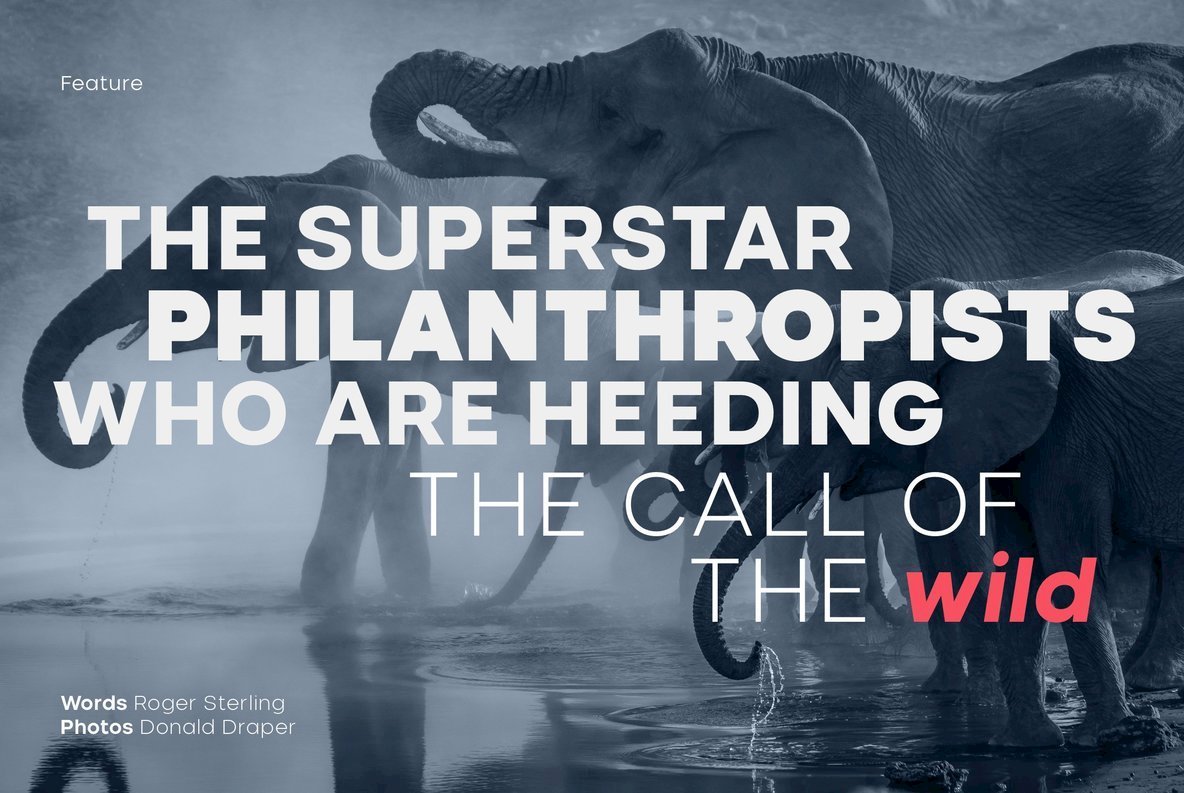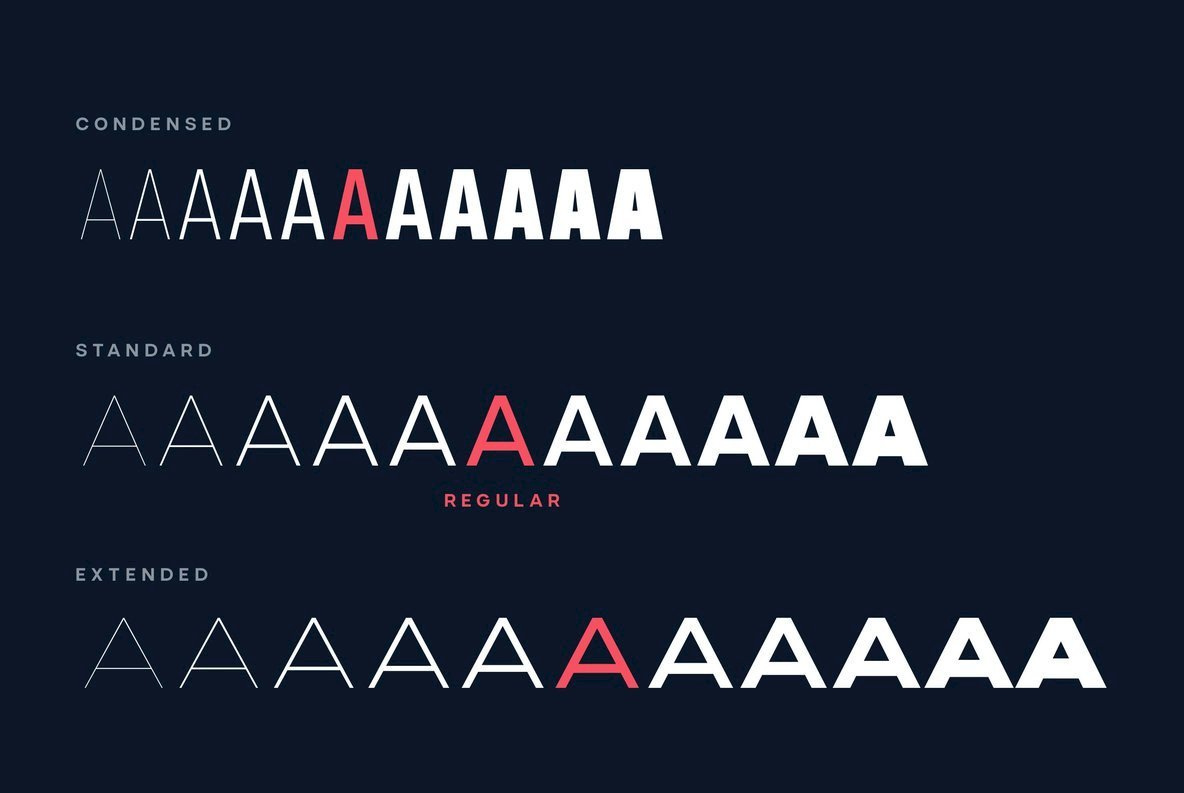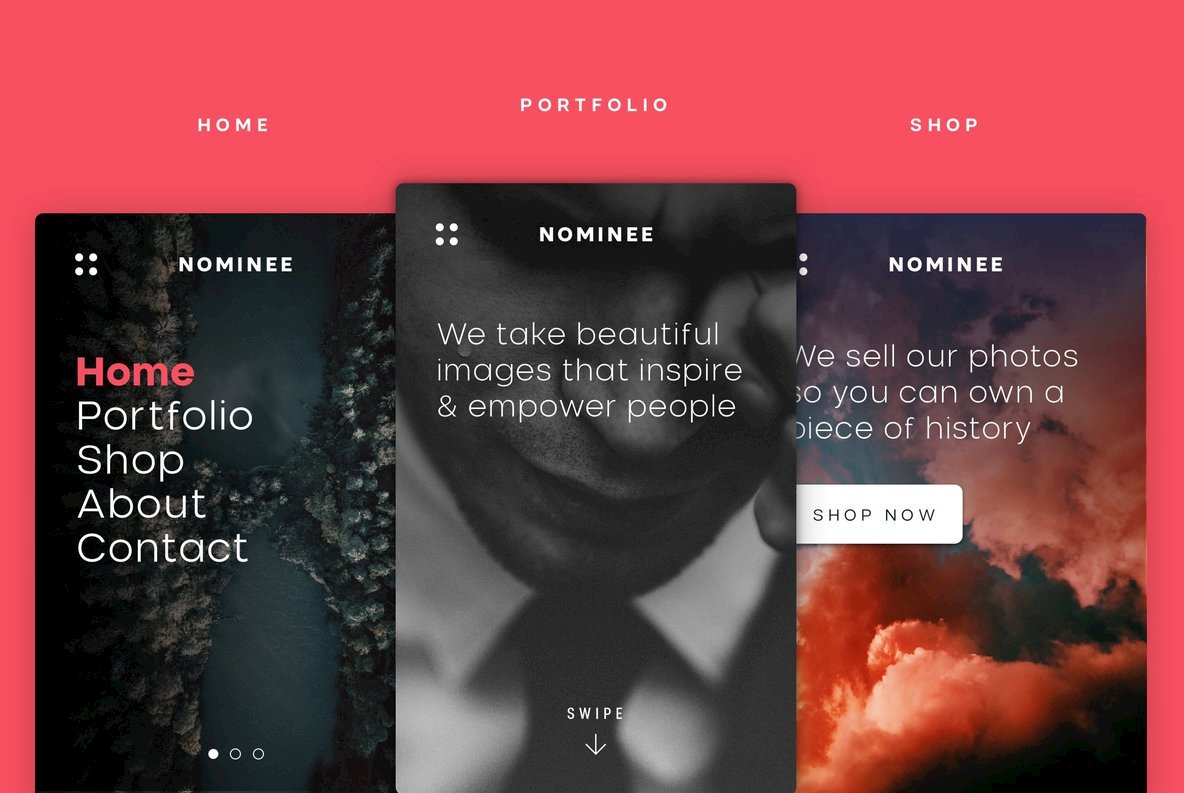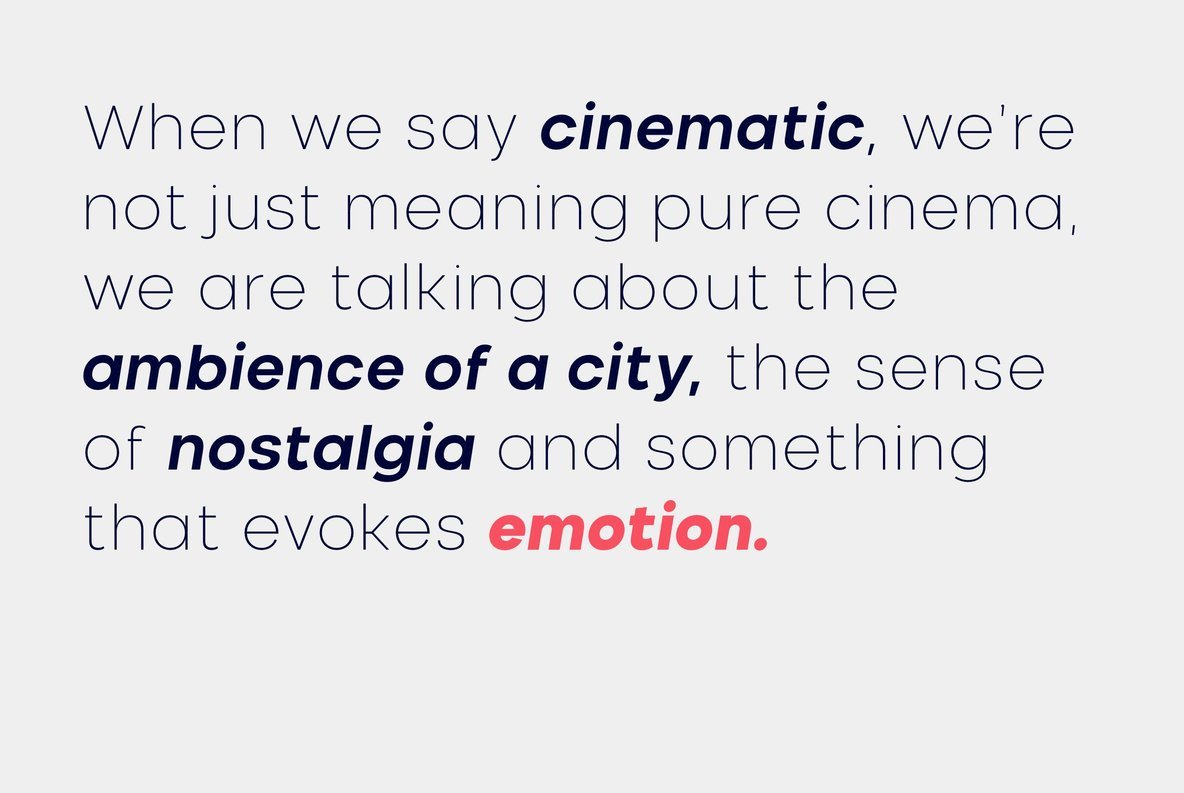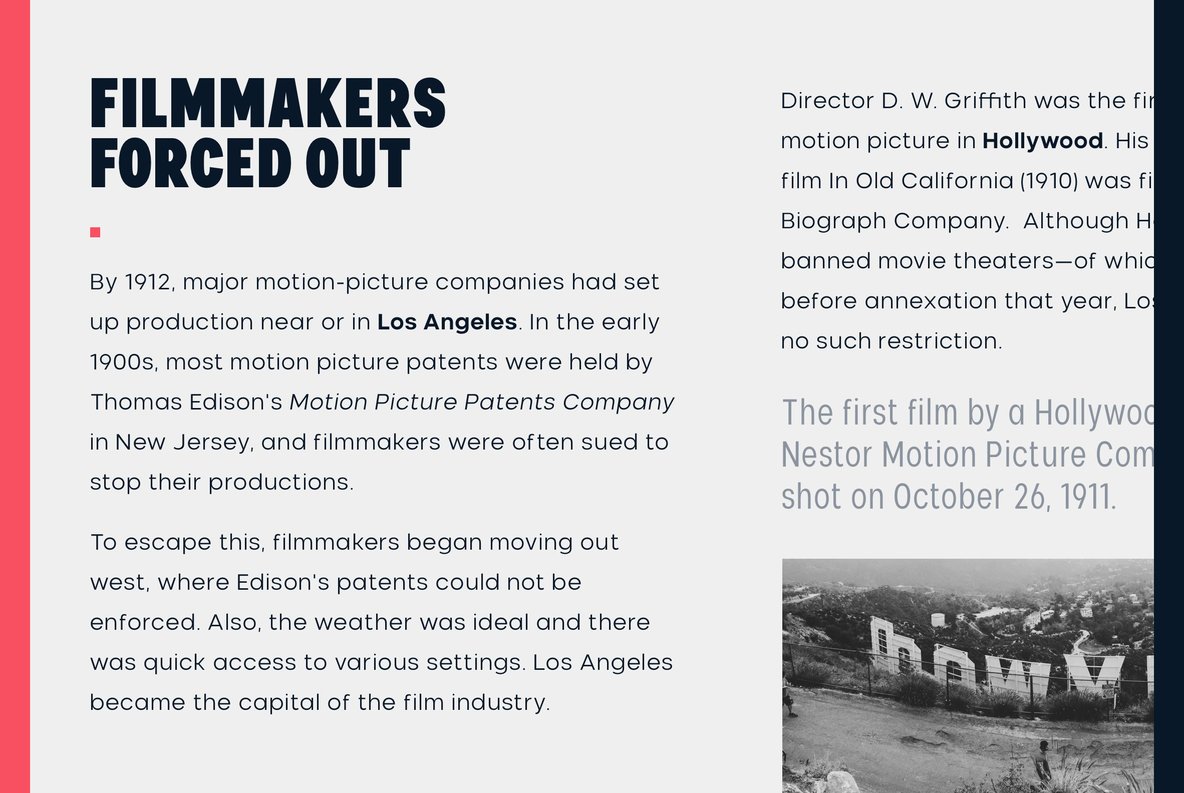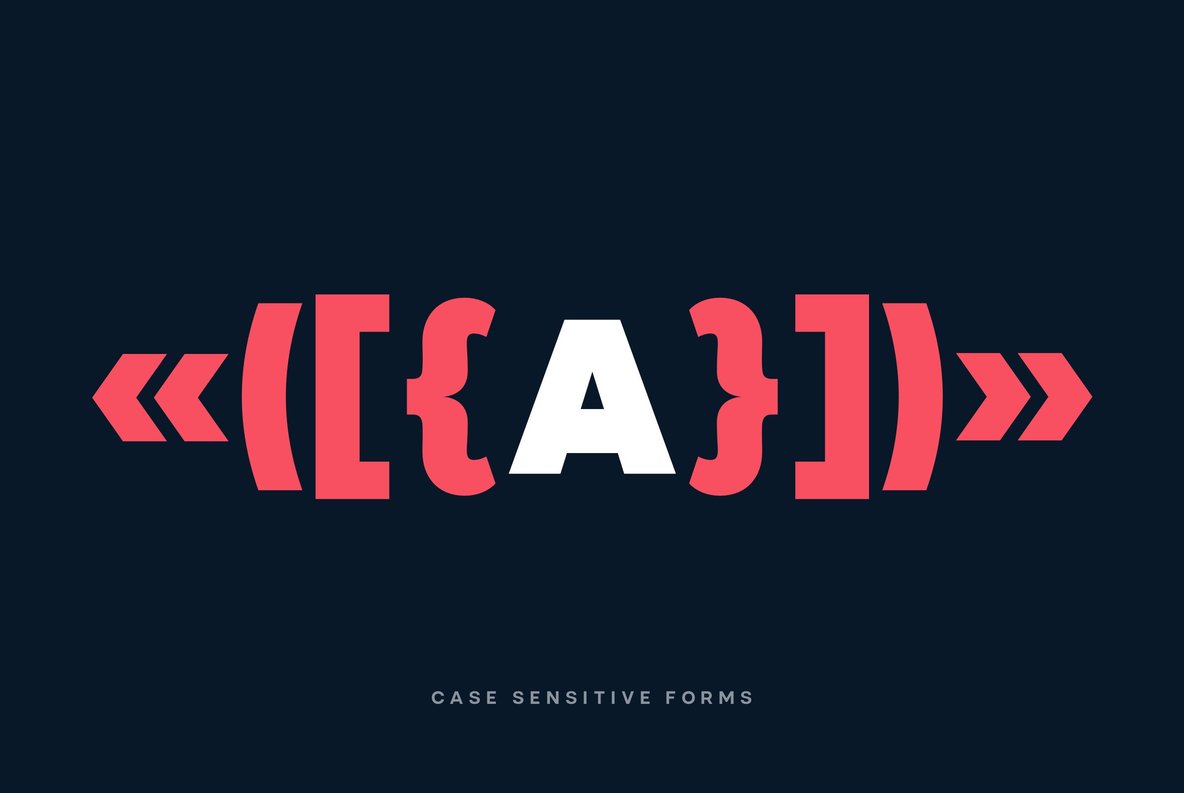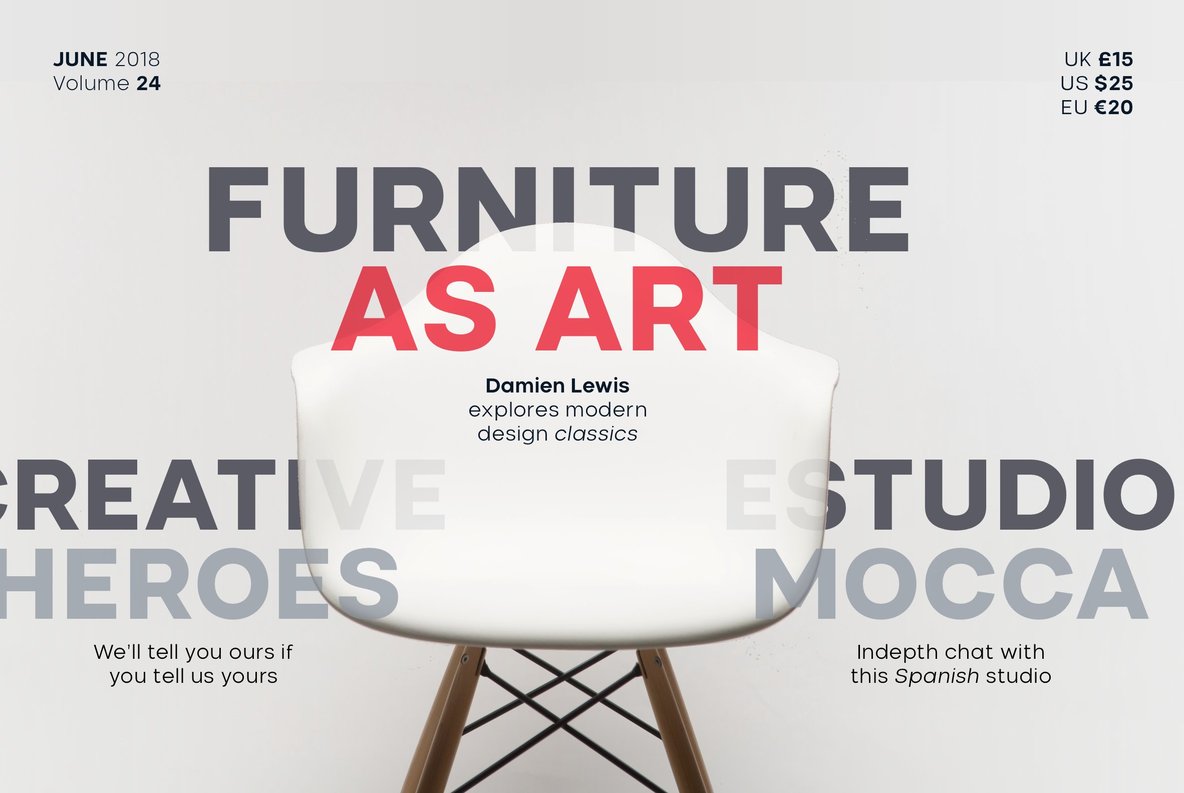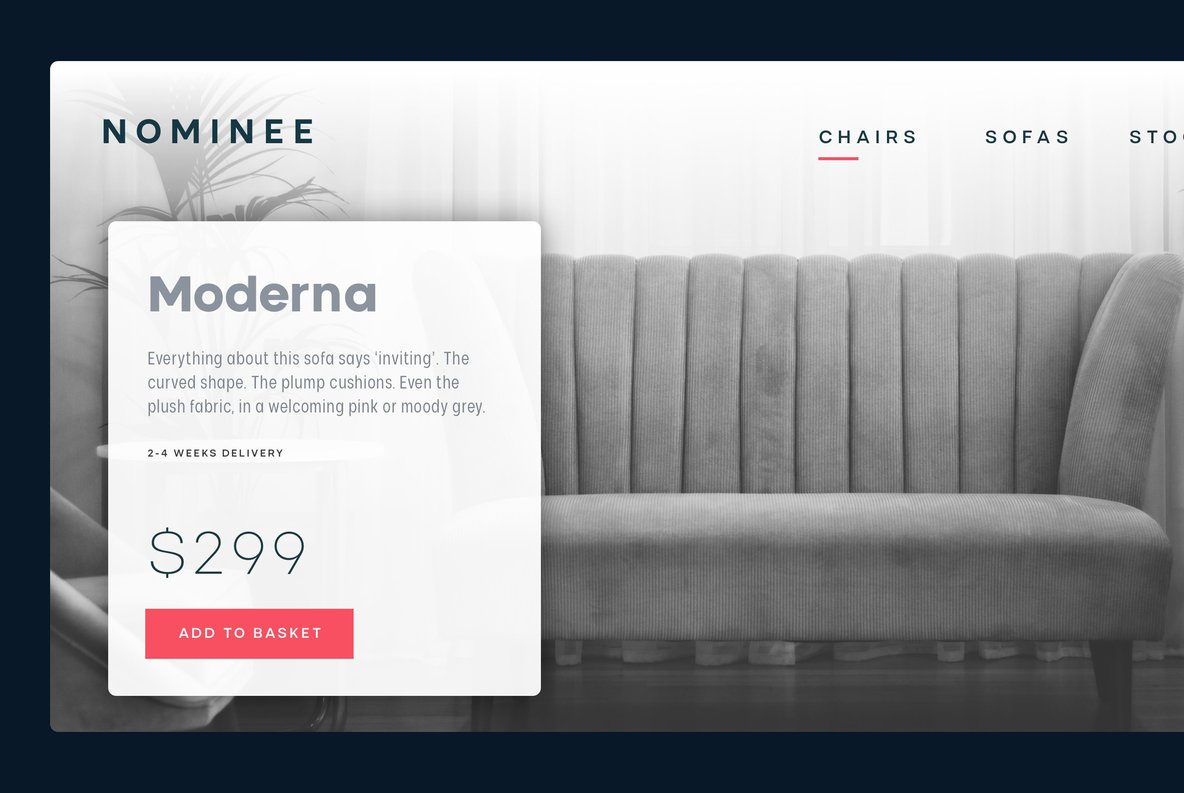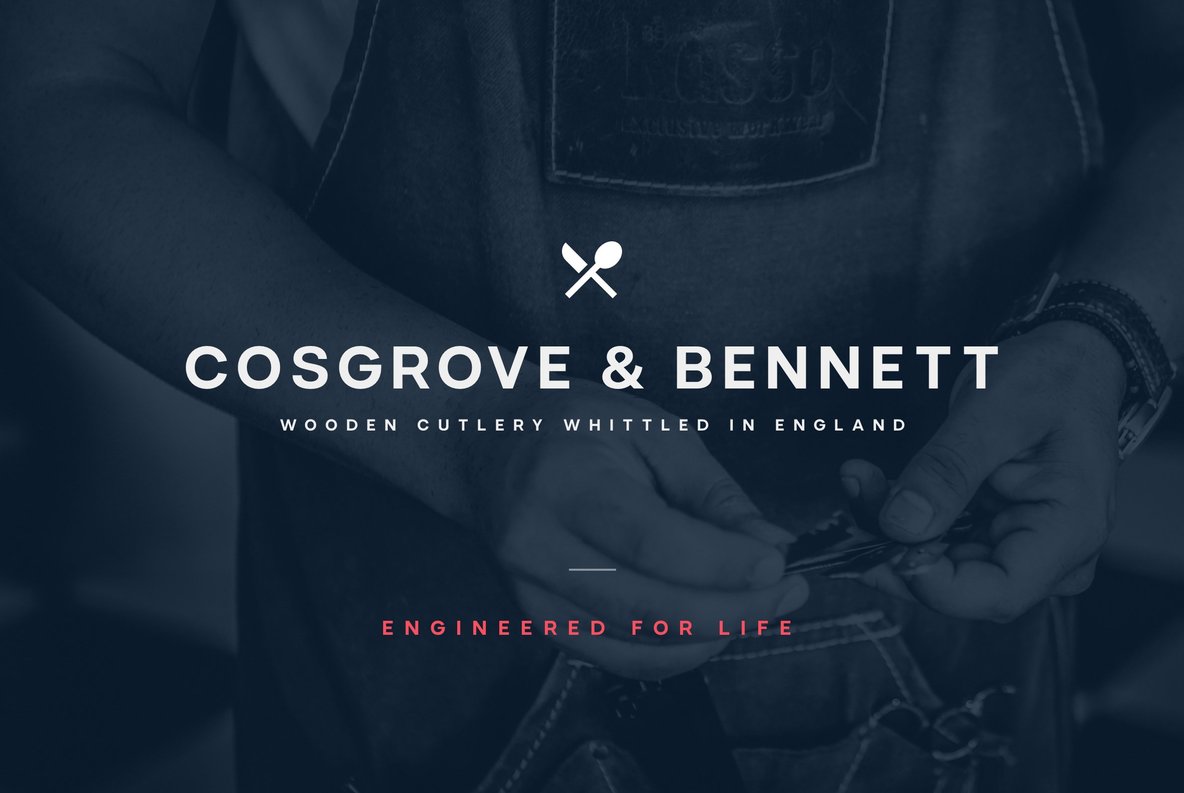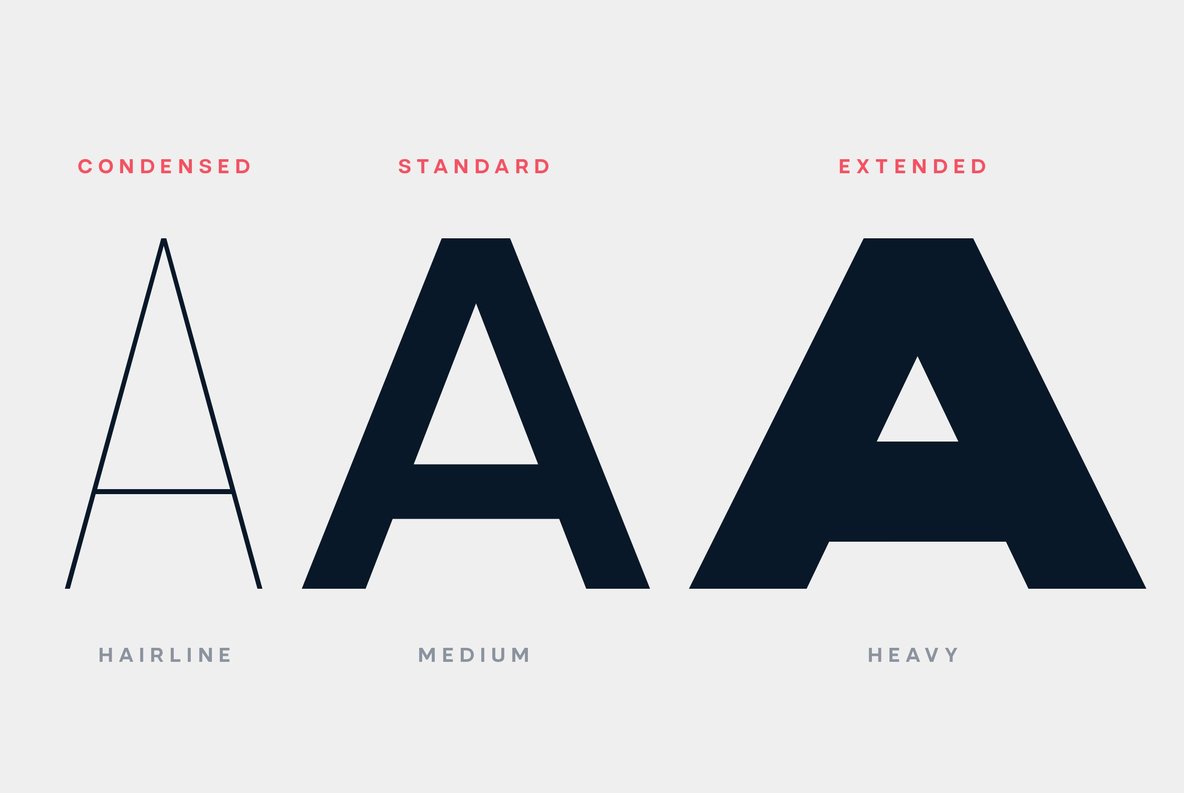
Nominee Font
The font features details such as case sensitive characters, numerators and denominators, and support for Central and Eastern European along with Western European languages and Basic Cyrillic.